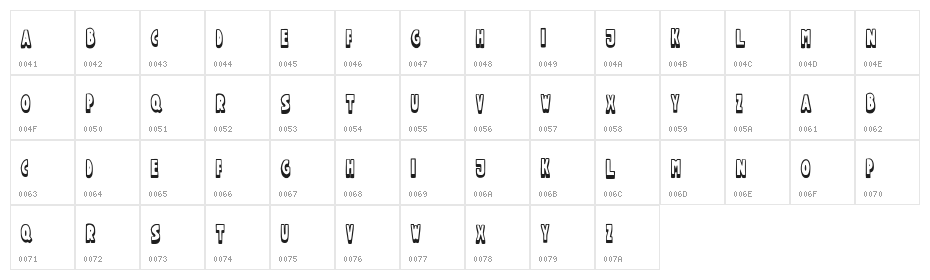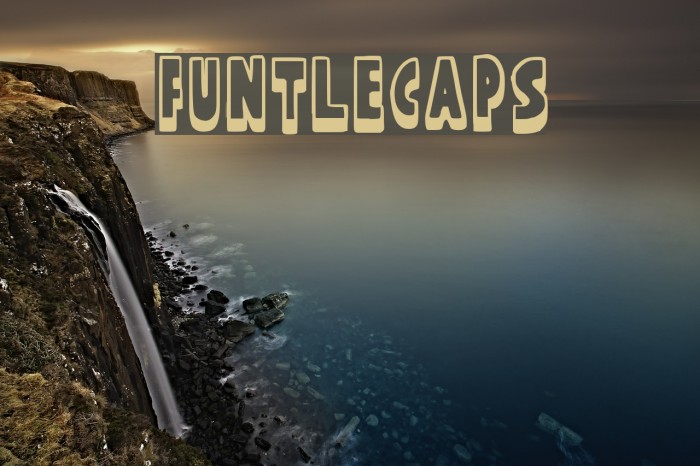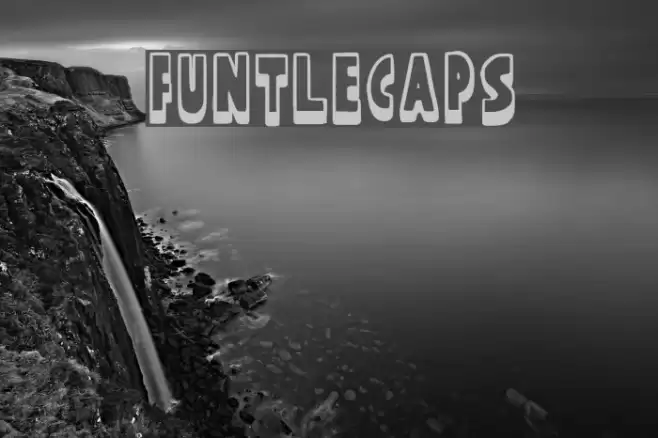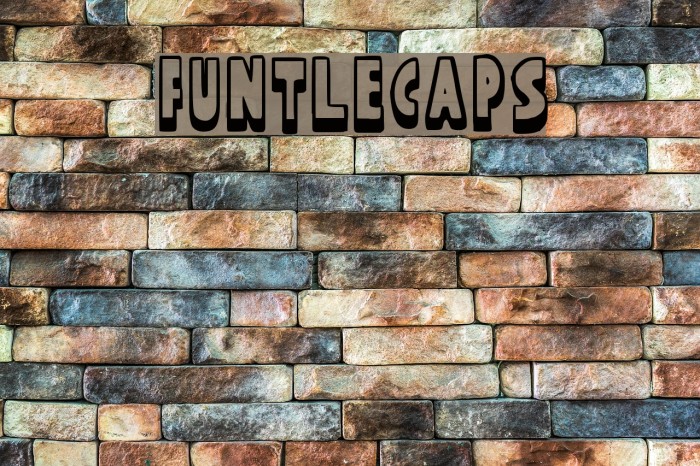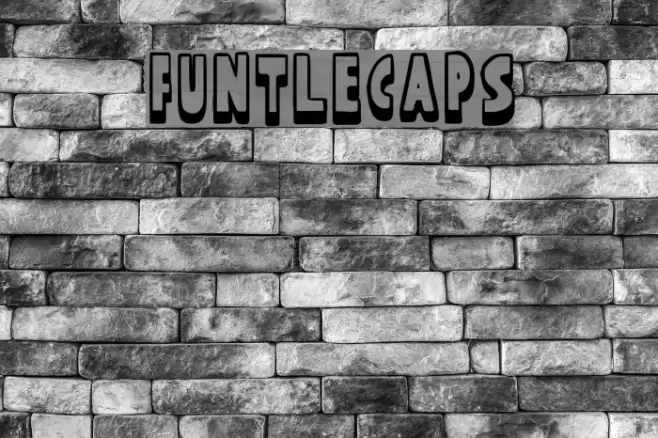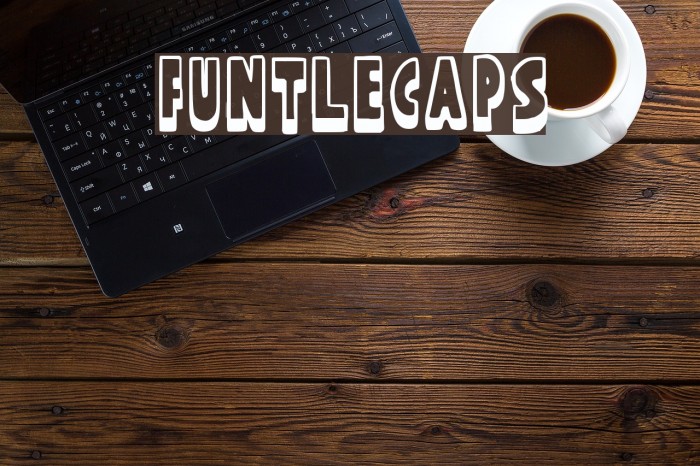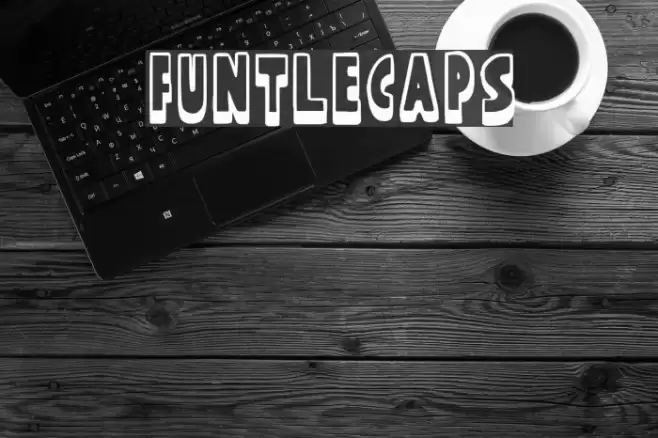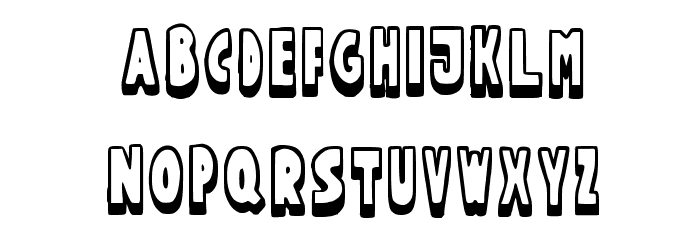
FuntleCaps Font
FuntleCaps Description
This font features bold, playful characters with a thick outline that gives each letter a distinct, cartoonish appearance. The uppercase letters are designed with a consistent height and width, creating a uniform look across the alphabet. The style is reminiscent of comic book lettering, with a fun and approachable vibe. The characters have a slight inward curve, adding to their whimsical nature. This font does not include lowercase letters or numbers, focusing solely on uppercase characters, which enhances its decorative and display qualities. The spacing between characters is relatively tight, ensuring that the text remains compact and visually impactful.
| Overall Style | Playful, Cartoonish |
| Proposed Projects | Ideal for children's books, comic strips, playful branding, and eye-catching posters. |